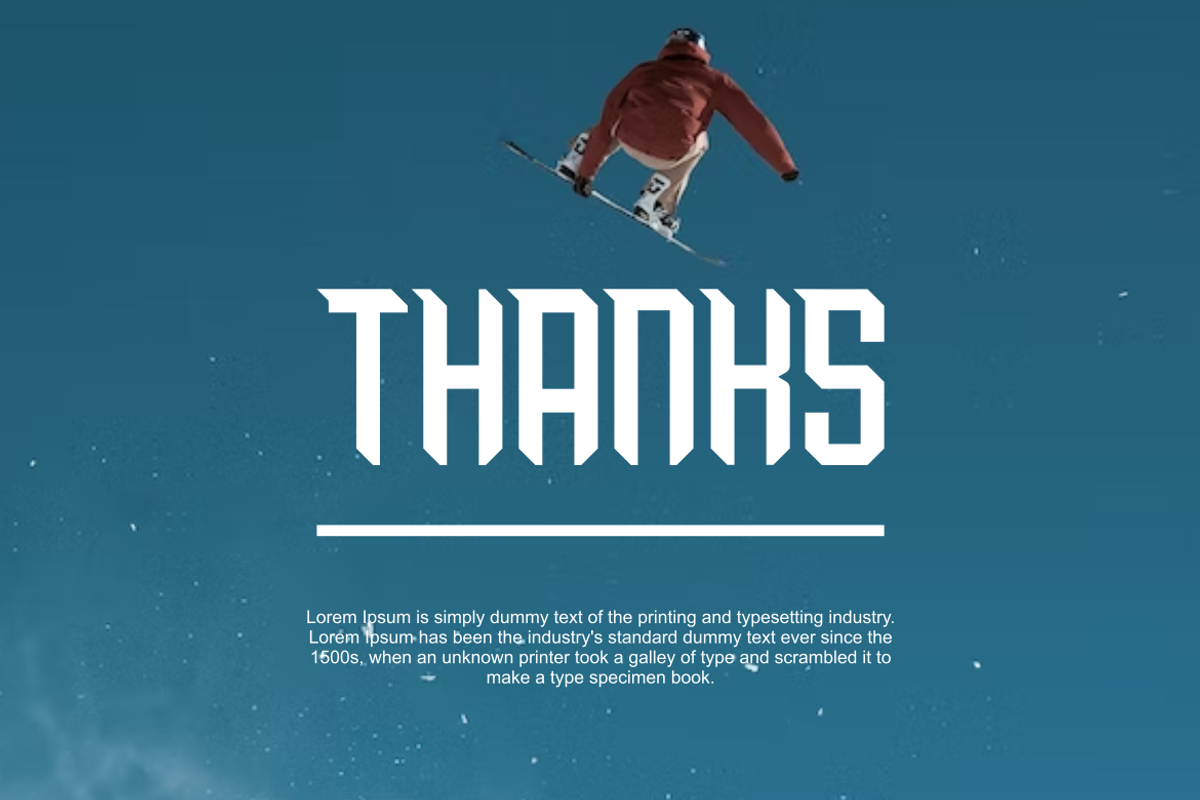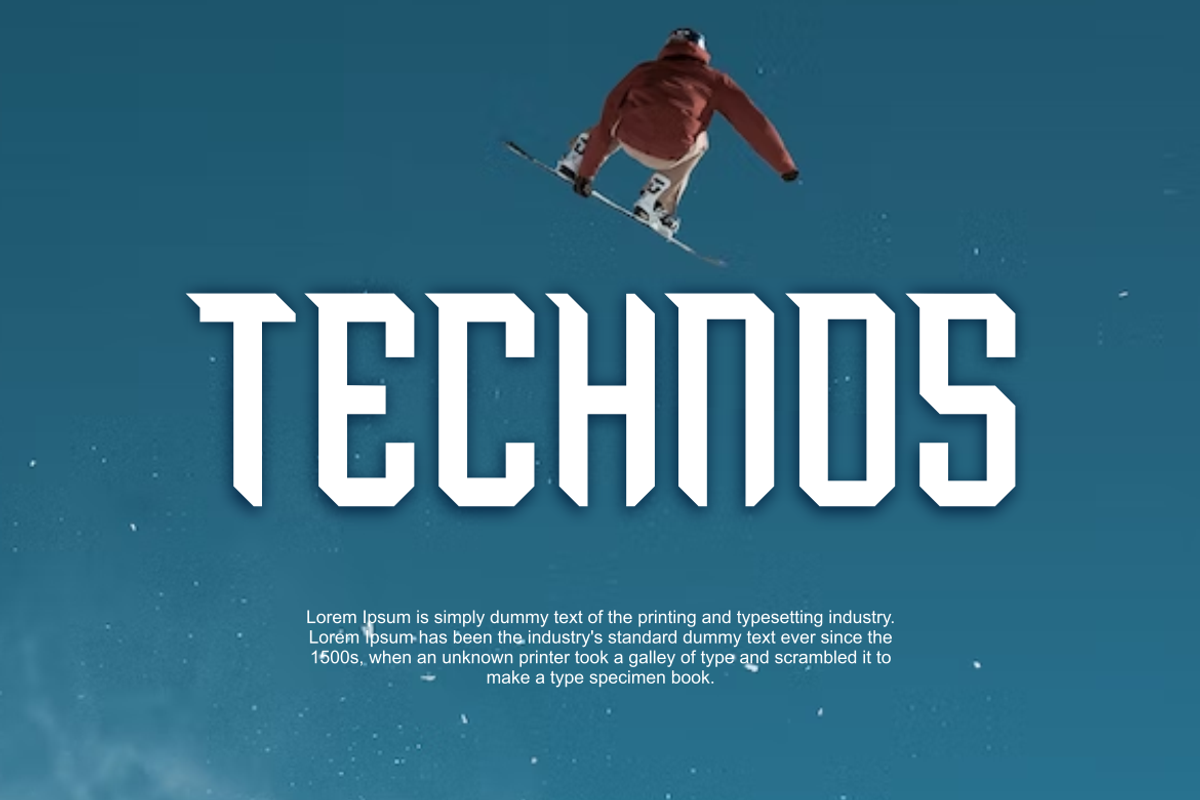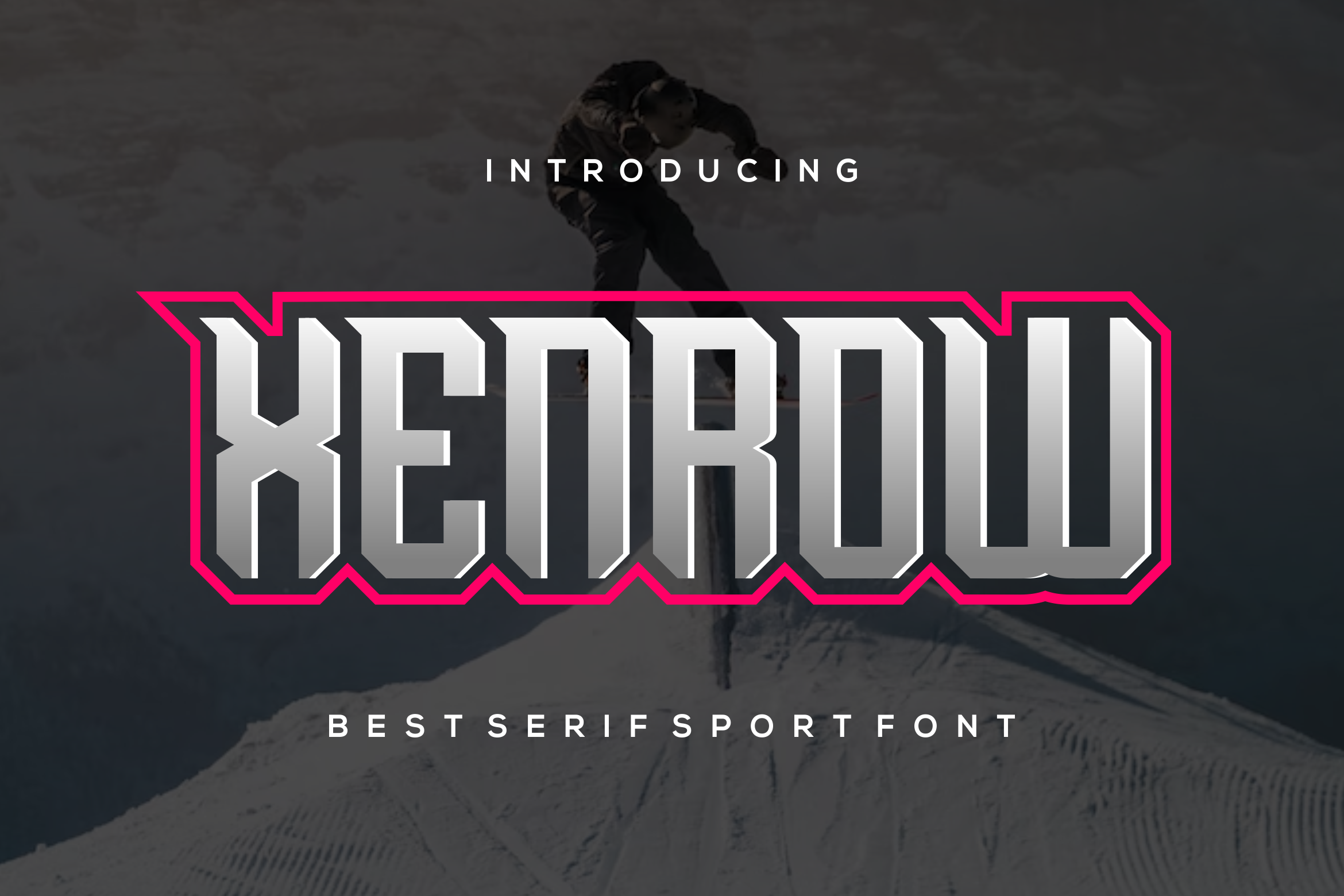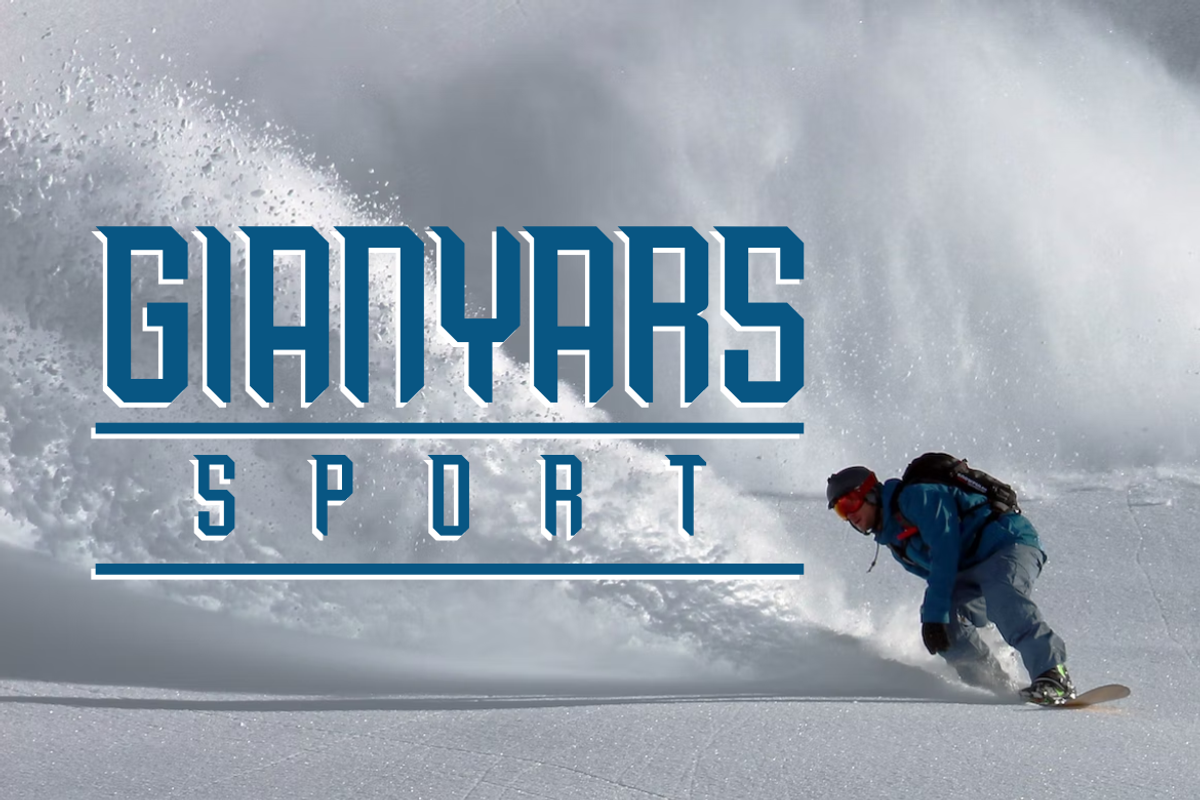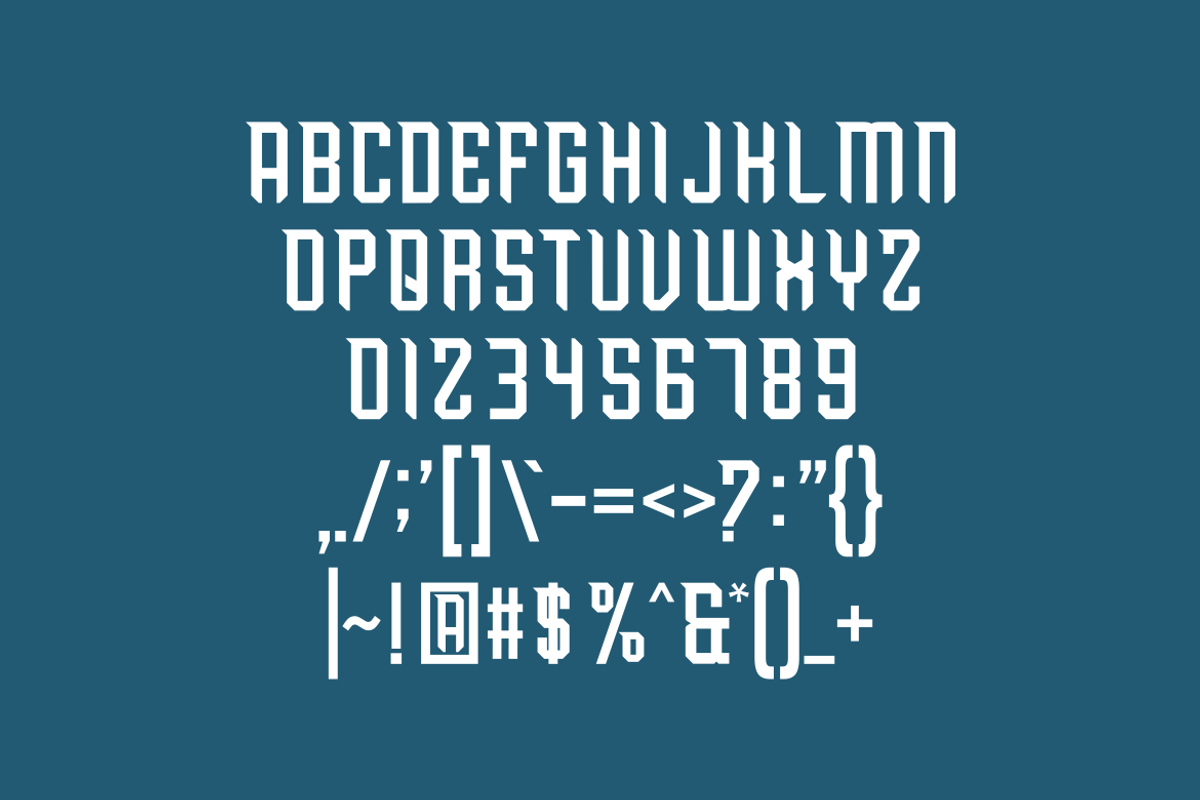
Xenrow Font
Introducing our new product Xenrow Font - Modern Font
Xenrow Font - Modern Font is a bold and authentic display font. The font is suitable for any branding project like logo, esport, and many more. outstanding in a wide range of contexts.